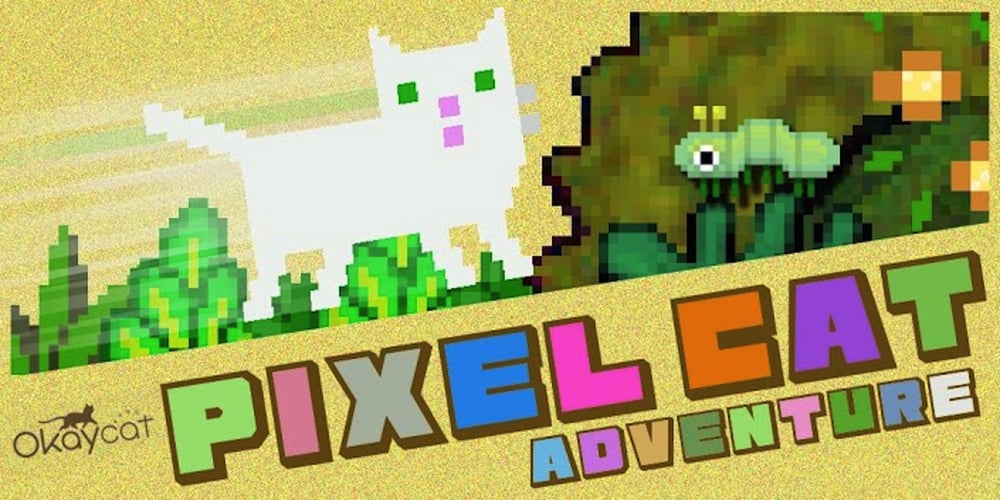
Okay A Font Family was designed by Luke William Turvey and published by Okaycat. Okay A contains 6 styles and family package options. Okay-A lets you make 3D letters that look to be fastened down with screws. Inspired by the angular futuristic shapes of Japanese Katakana letters, this angular font is bold and square. Okay-A lets you easily make multicolour logos or signs as the styles can be overlaid. It features extended characters, containing West European diacritics & ligatures, making it suitable for international environments & publications.